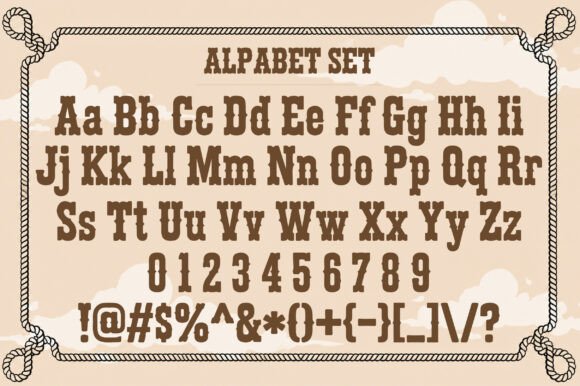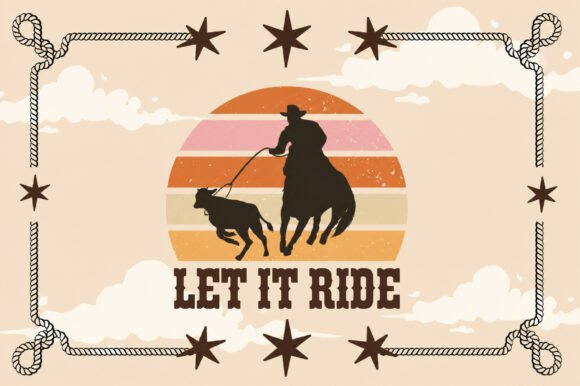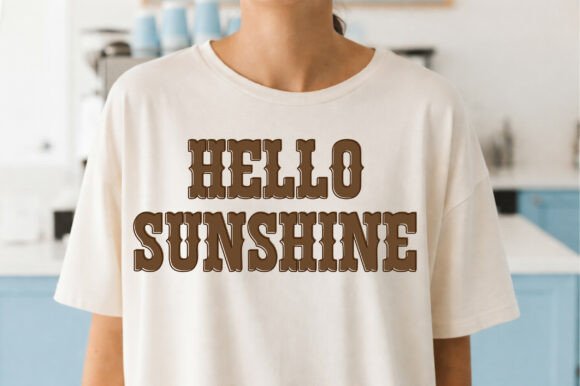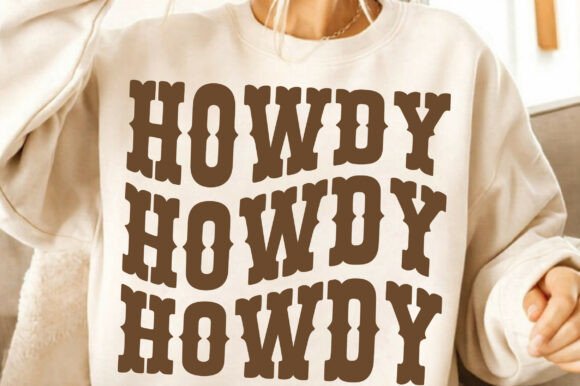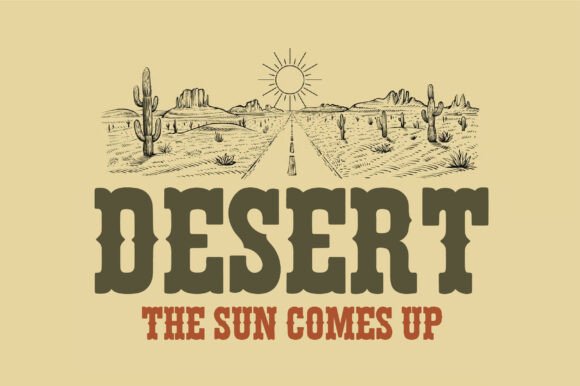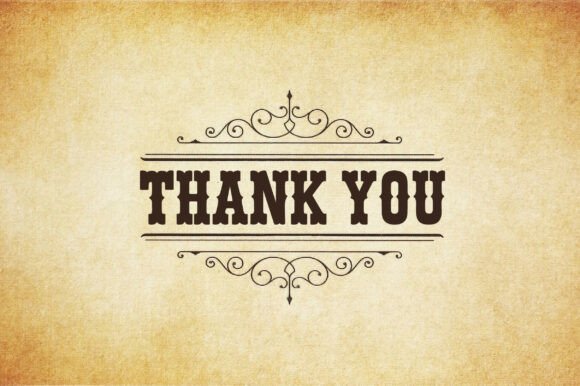
Introduction to Rustic Cowboy Font
As a designer, have you ever found yourself staring at a blank canvas, waiting for the perfect font to bring your creative project to life? Perhaps it’s the rustic charm of a country road, the rugged beauty of a mountain landscape, or the nostalgia of a vintage Western movie that sparks your imagination. Whatever the inspiration, you’re in luck because we’ve got just the thing to transport you to the Wild West: the Rustic Cowboy Font.
With its bold, high-quality letterforms and dramatic slab serifs, this design resource is a must-have for any designer looking to add a touch of authenticity to their work. Whether you’re working on a free download project or a paid client, the Rustic Cowboy Font is an invaluable asset that will take your designs to the next level.
From its transparent background to its unique, spined silhouette, this font is a true gem that’s sure to leave a lasting impression. So, saddle up and get ready to experience the raw power and unyielding heritage of the American frontier with the Rustic Cowboy Font.
Key Features of Rustic Cowboy Font
- High-quality design resource ideal for creative projects, including western-themed illustrations and designs.
- Unique, hand-drawn style with a distressed finish, giving it a vintage and rustic feel.
- Includes a transparent background, making it easy to use in various design applications.
- Font size: 256 glyphs, with a resolution of 1024 x 1024 DPI for high-quality rendering.
- Suitable for use in various creative projects, including logos, signage, and packaging design.
- Perfect for designers looking for a high-quality, free design resource to add a rustic touch to their work.
Honest Review: Rustic Cowboy Font
I recently had the chance to work with the Rustic Cowboy Font, and I must say it’s been a game-changer for my creative project. This high-quality design resource has been a great addition to my toolkit.
One of the standout features of this font is its versatility. I’ve been able to use it for a variety of purposes, from titles to body text, and it always looks great. The transparent background option is also super convenient – it’s saved me so much time in the design process.
- The font may not be suitable for very formal or professional projects
- Some users may find the rustic style a bit too quirky or overwhelming
Overall, I’m really impressed with the Rustic Cowboy Font. It’s a great resource for designers who want to add a bit of personality to their projects. Just be aware of its limitations, and you’ll be golden.
Use the Rustic Cowboy Font in conjunction with other design elements to create a cohesive look. Experiment with different font sizes and colors to achieve the desired effect. Also, use the transparent background feature to create a seamless design.
The Rustic Cowboy Font is a great design resource for creative projects, such as:
– Invitations and party decor
– Logos and branding
– Posters and advertisements
– Wedding and event decor